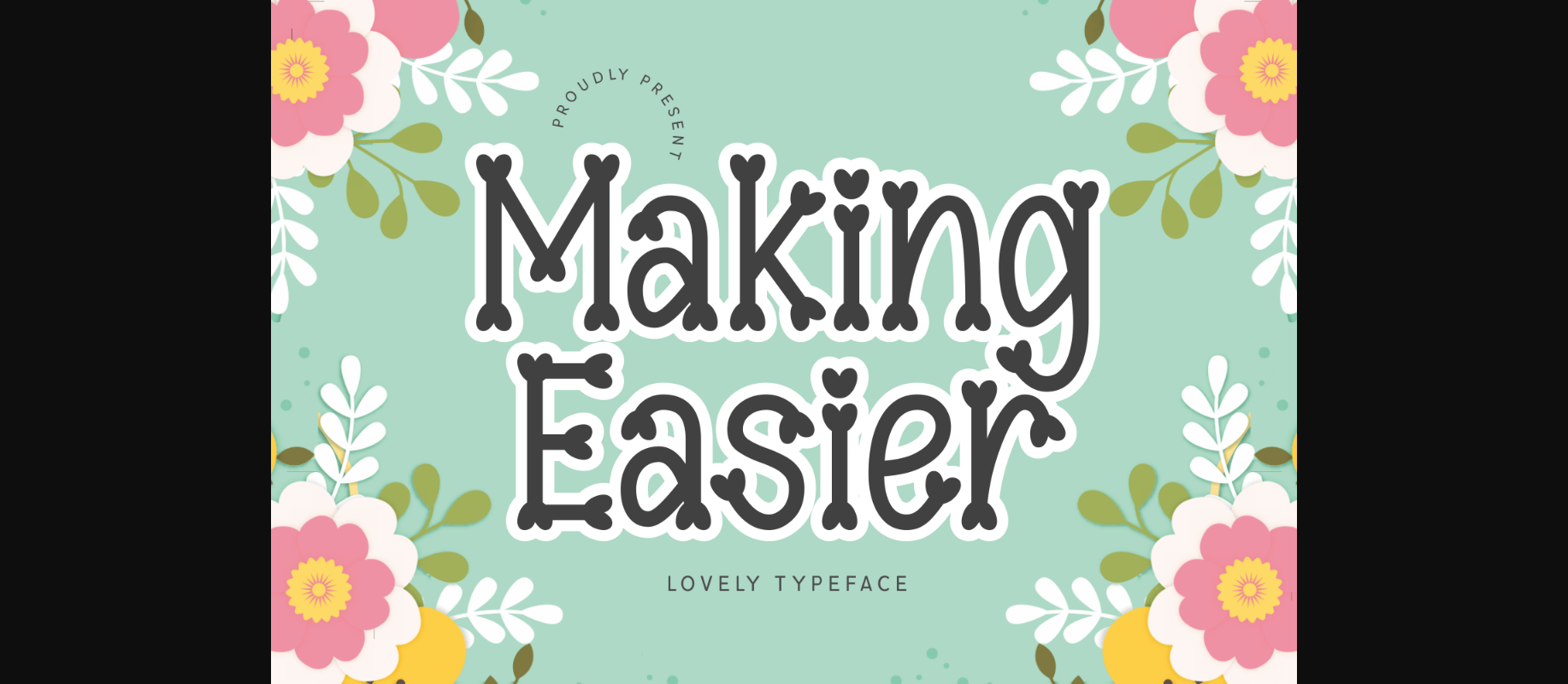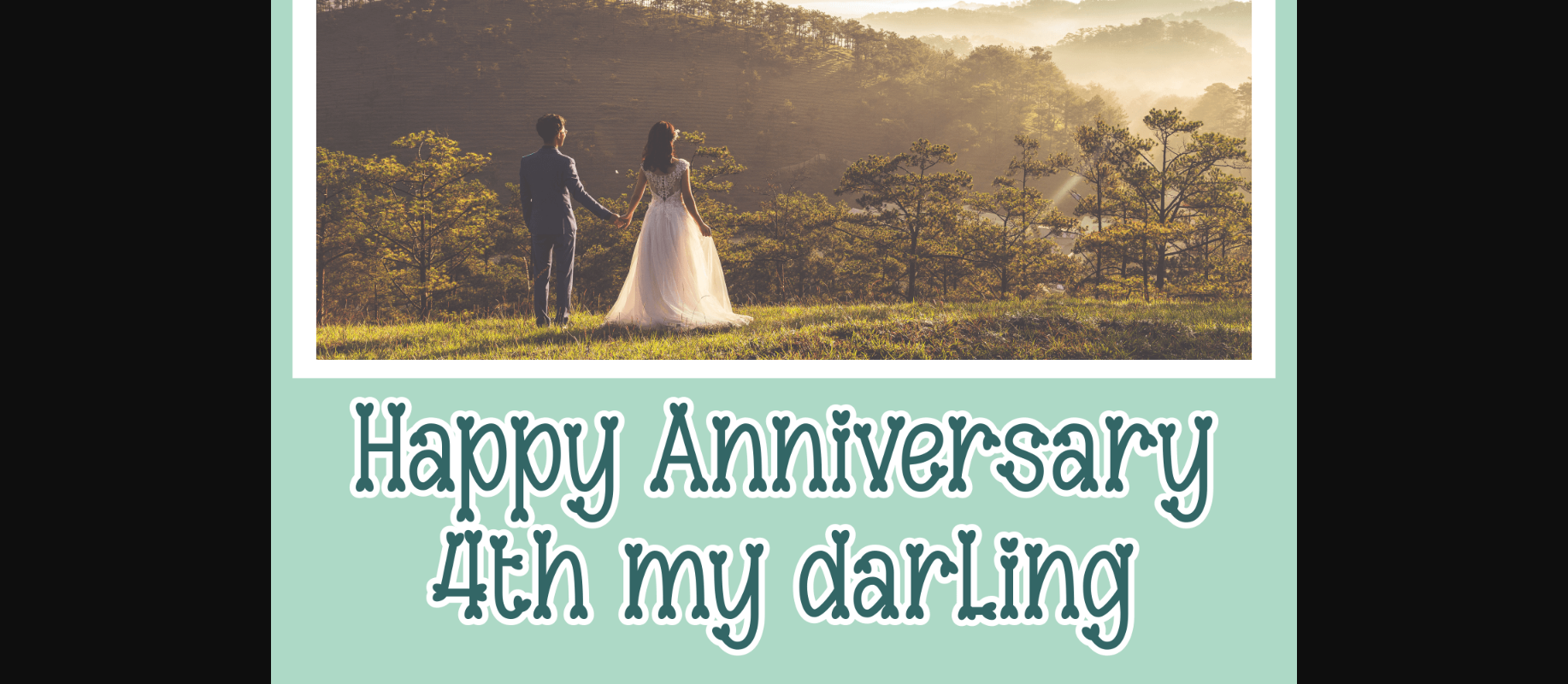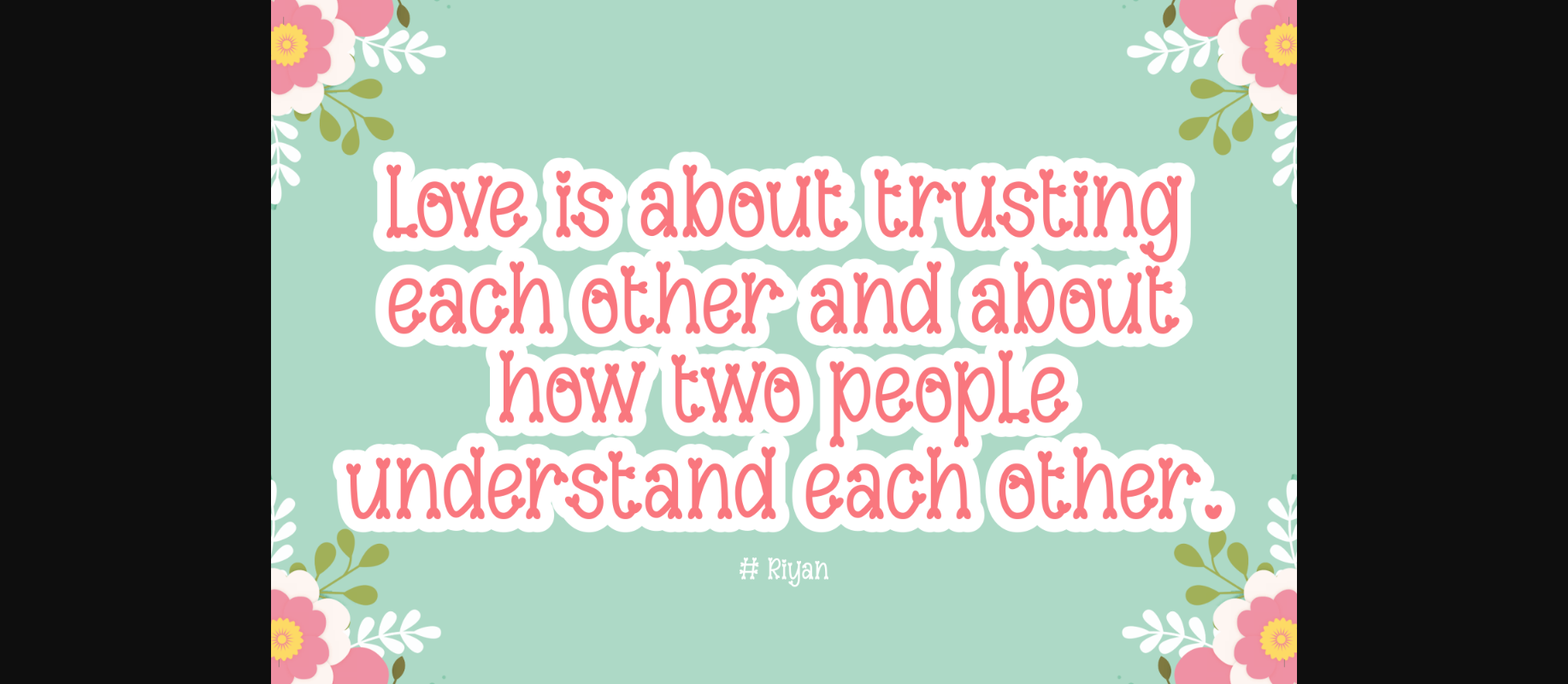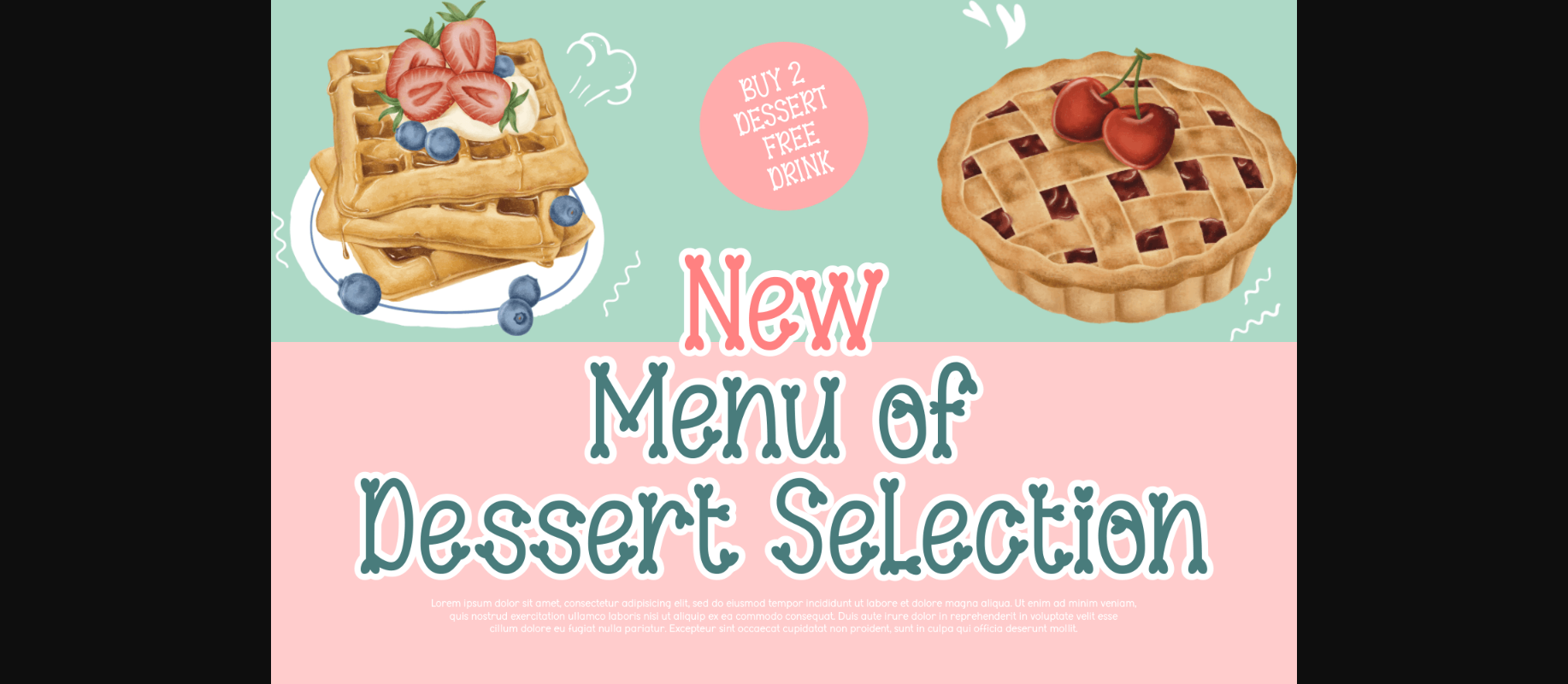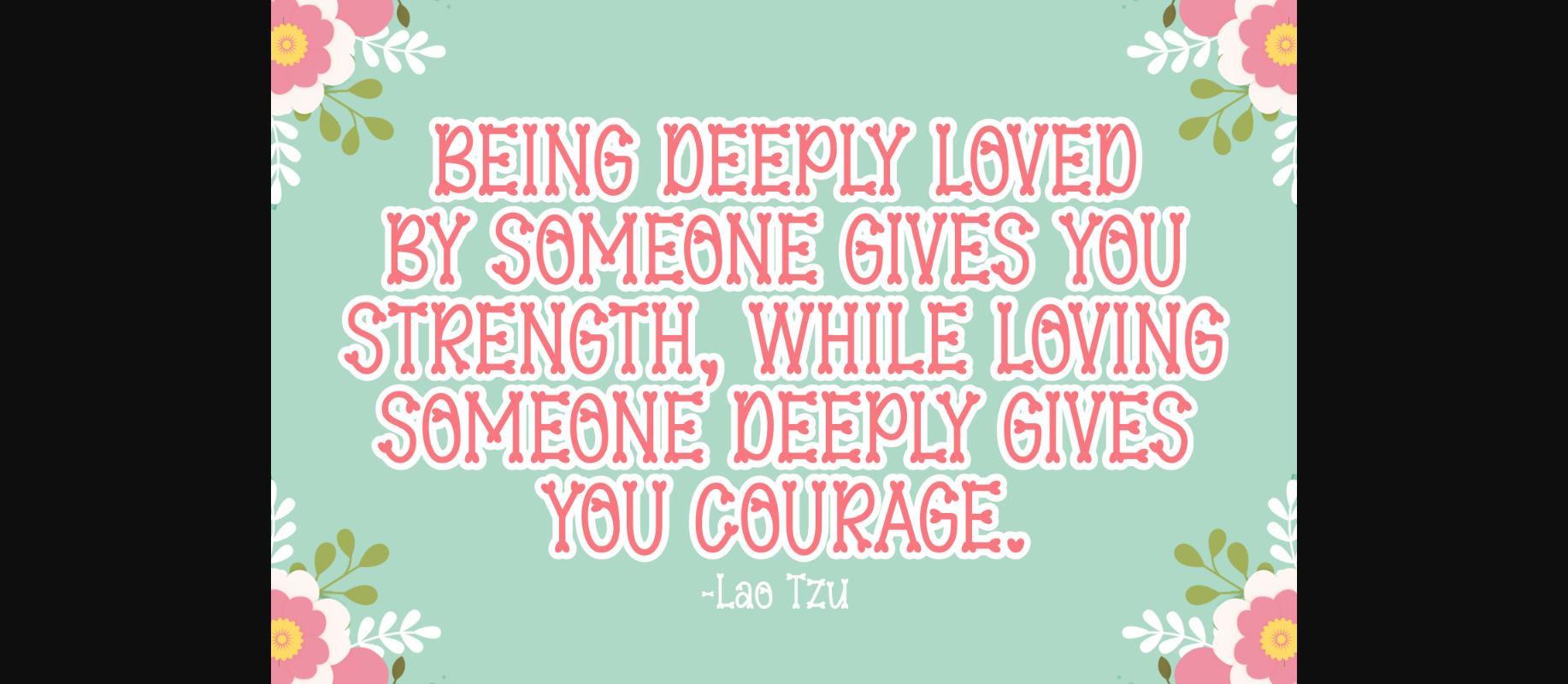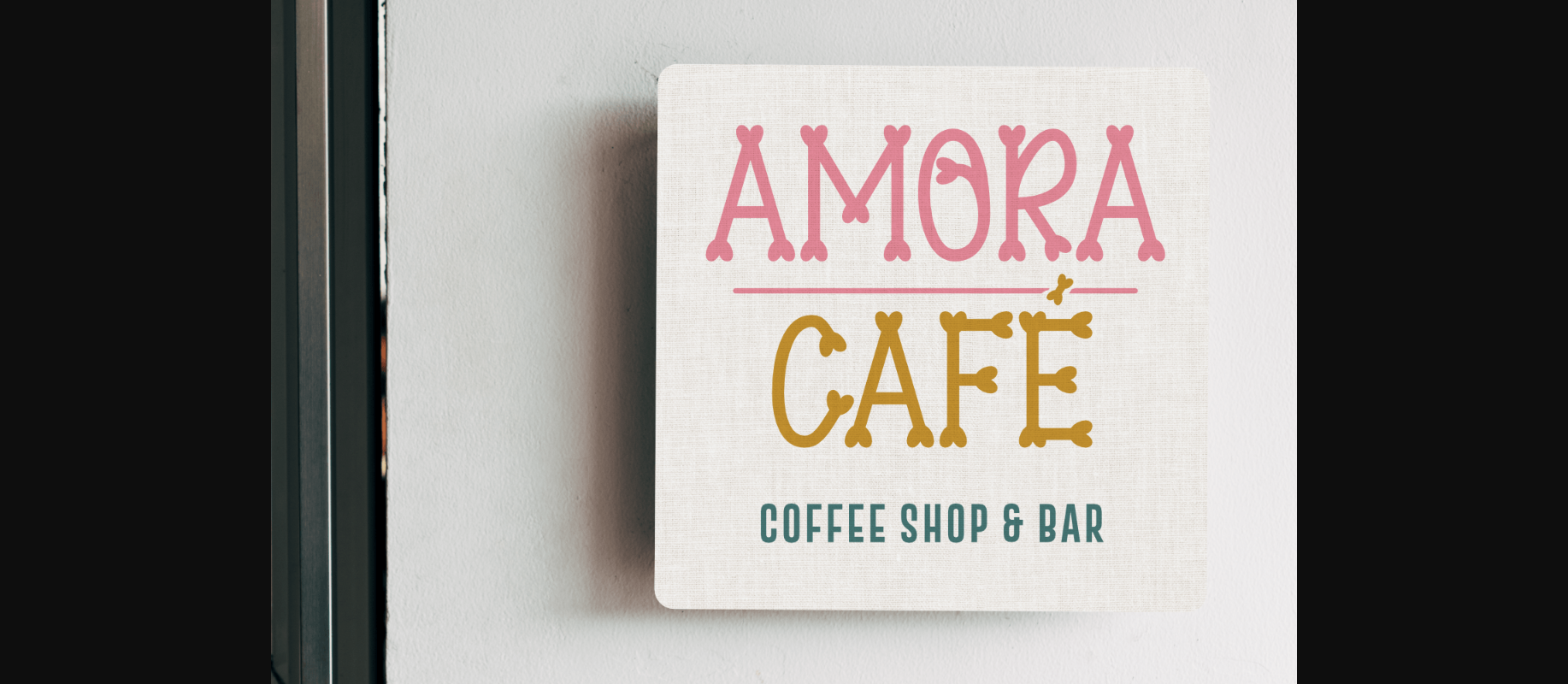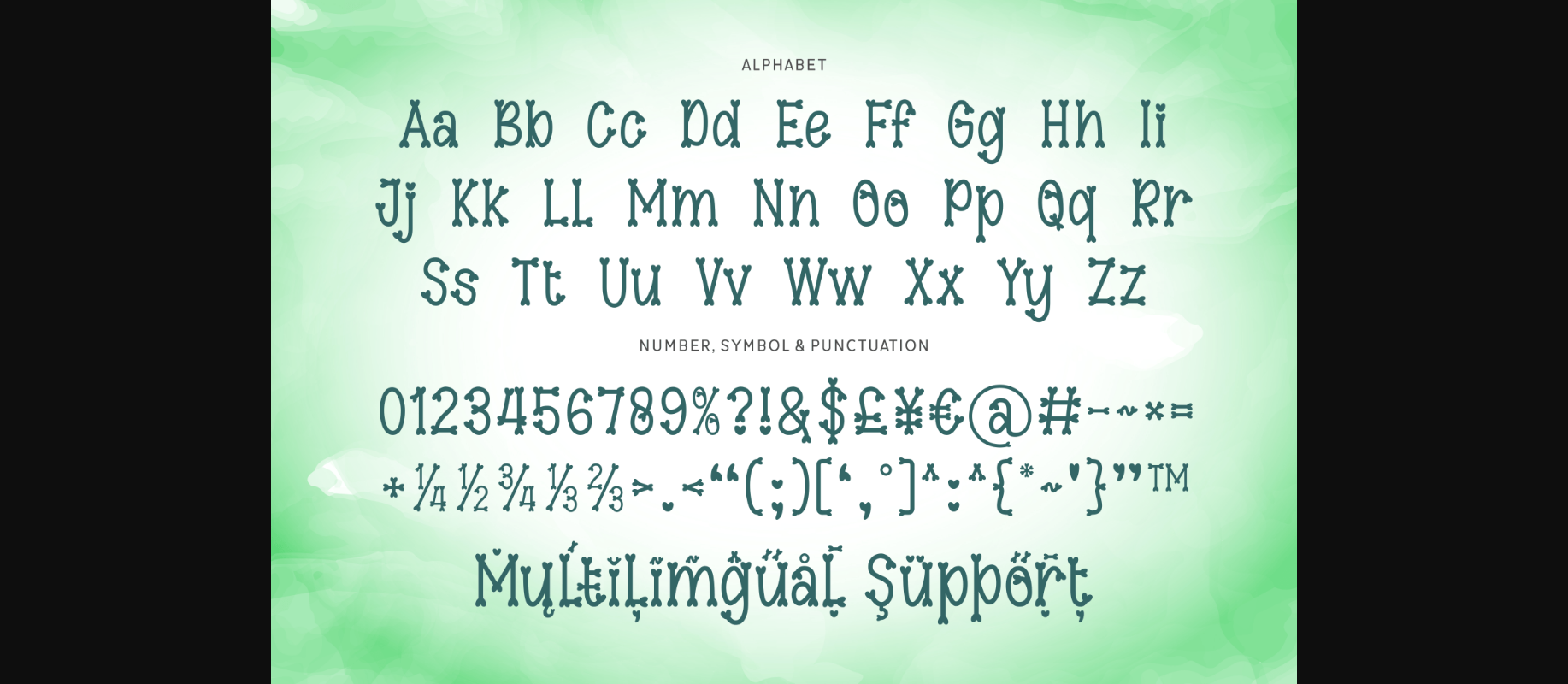
Making Easier Font
About Making Easier Font
Making Easier is a lovely decorative font with cute little hearts at the edges. Express your love with this adorable typeface! It is ideal for Valentine’s day projects, anniversary gifts, wedding designs, and anytime you need some extra cuteness.